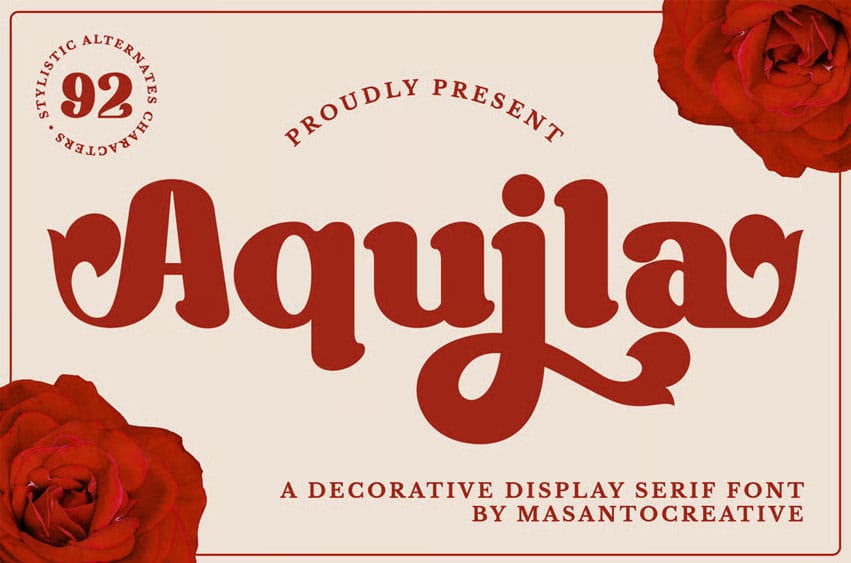
Aquila Font is a bold decorative serif font with artistic, high-contrast shapes and stylish details. Its unique curves and ornamental flair make it perfect for eye-catching headlines, vintage-inspired branding, logos, posters, and editorial layouts.
With its timeless character and refined personality, Aquila blends classic elegance with a strong visual impact. It comes complete with uppercase, lowercase, punctuation, and multilingual support—ideal for projects that demand bold expression and creative typography.
- Ligature & Stylistic alternate